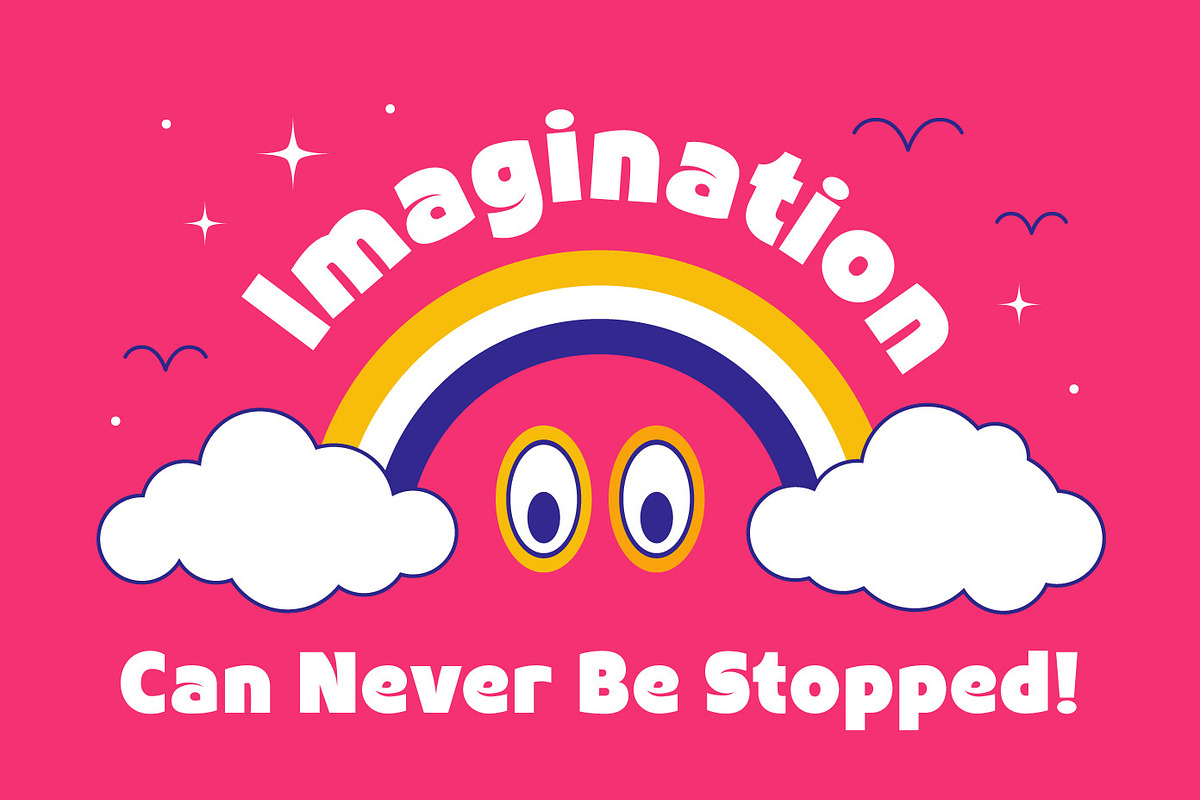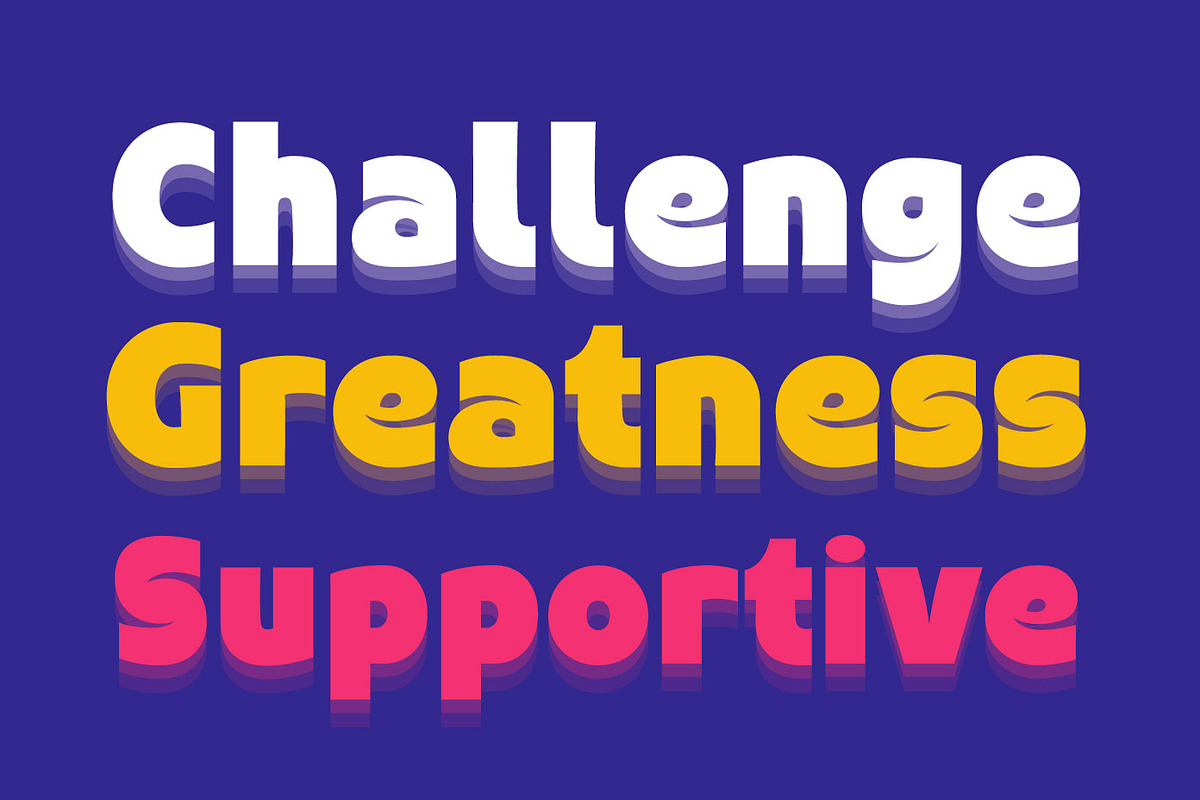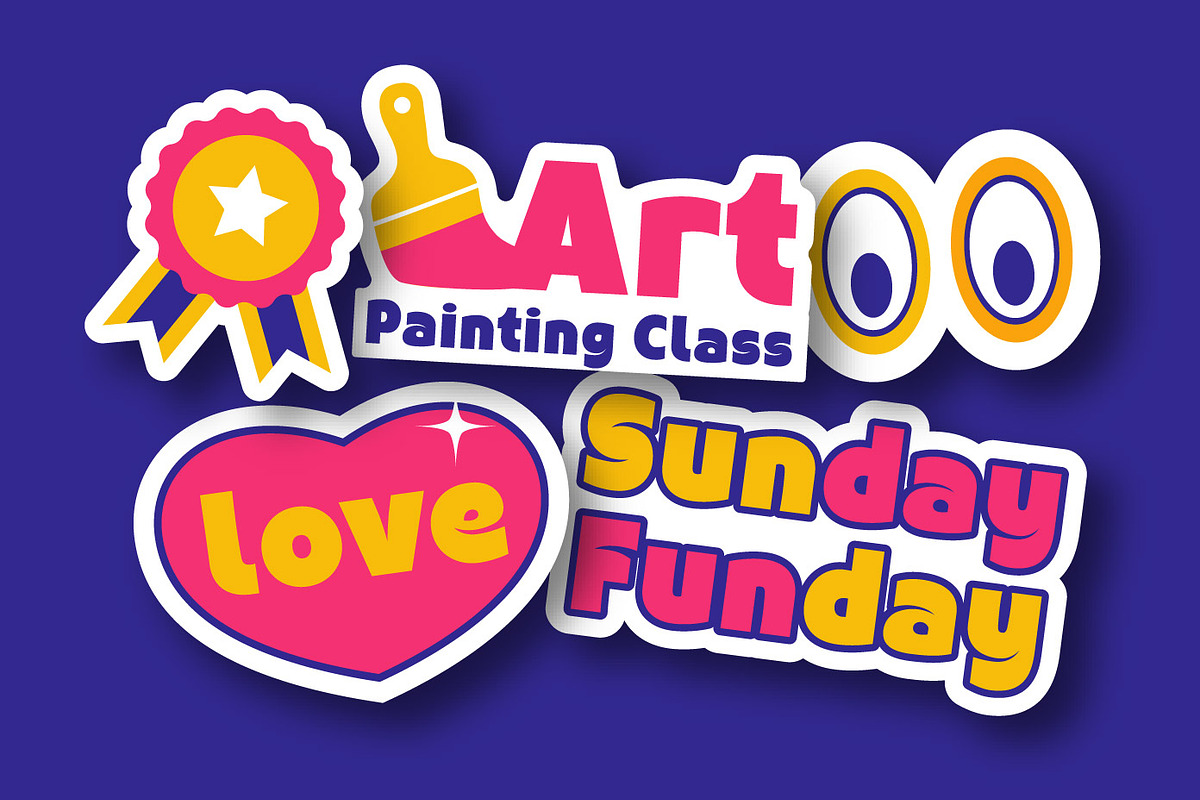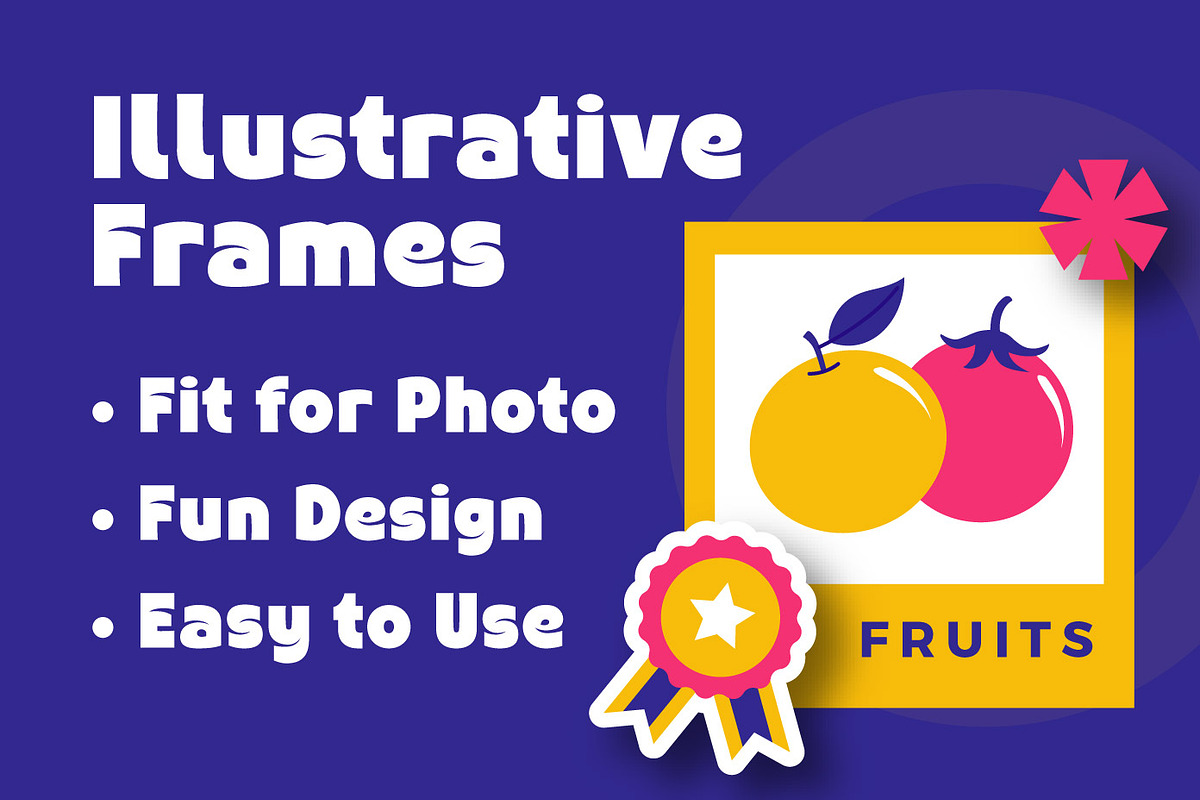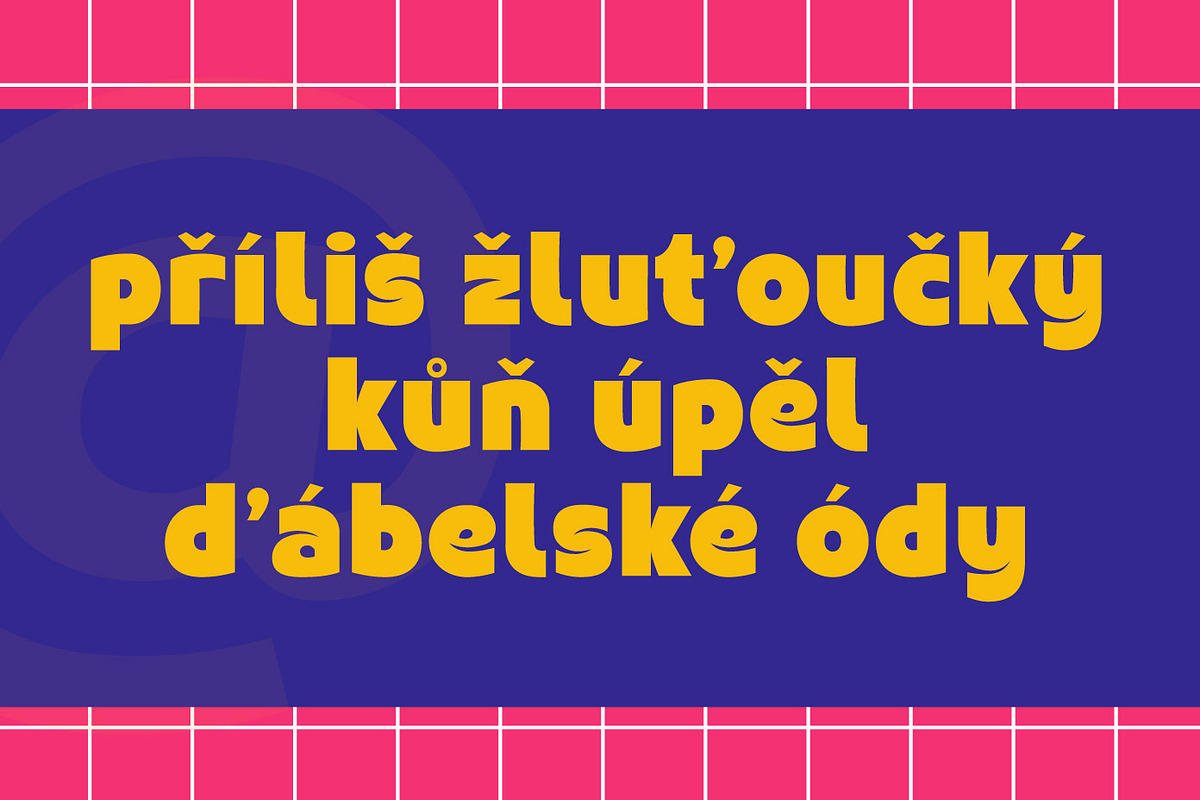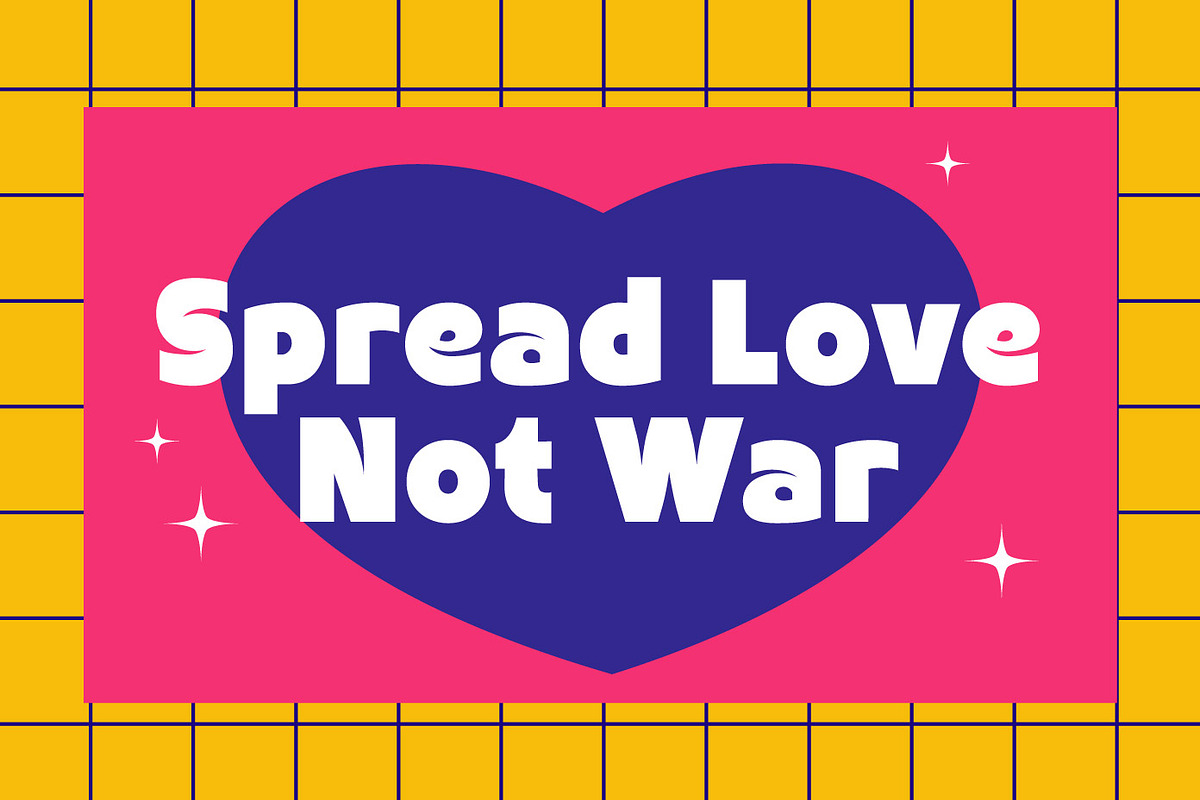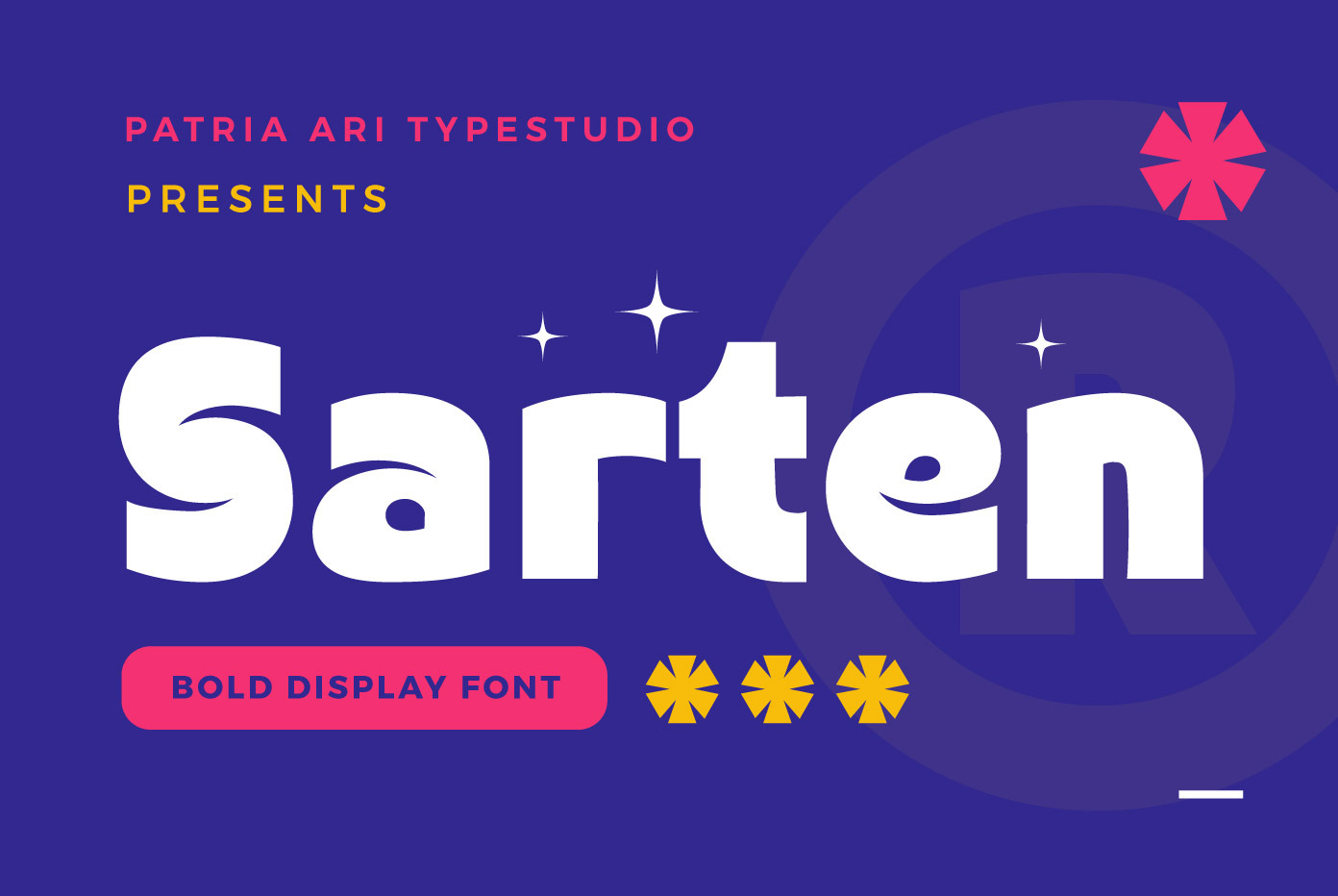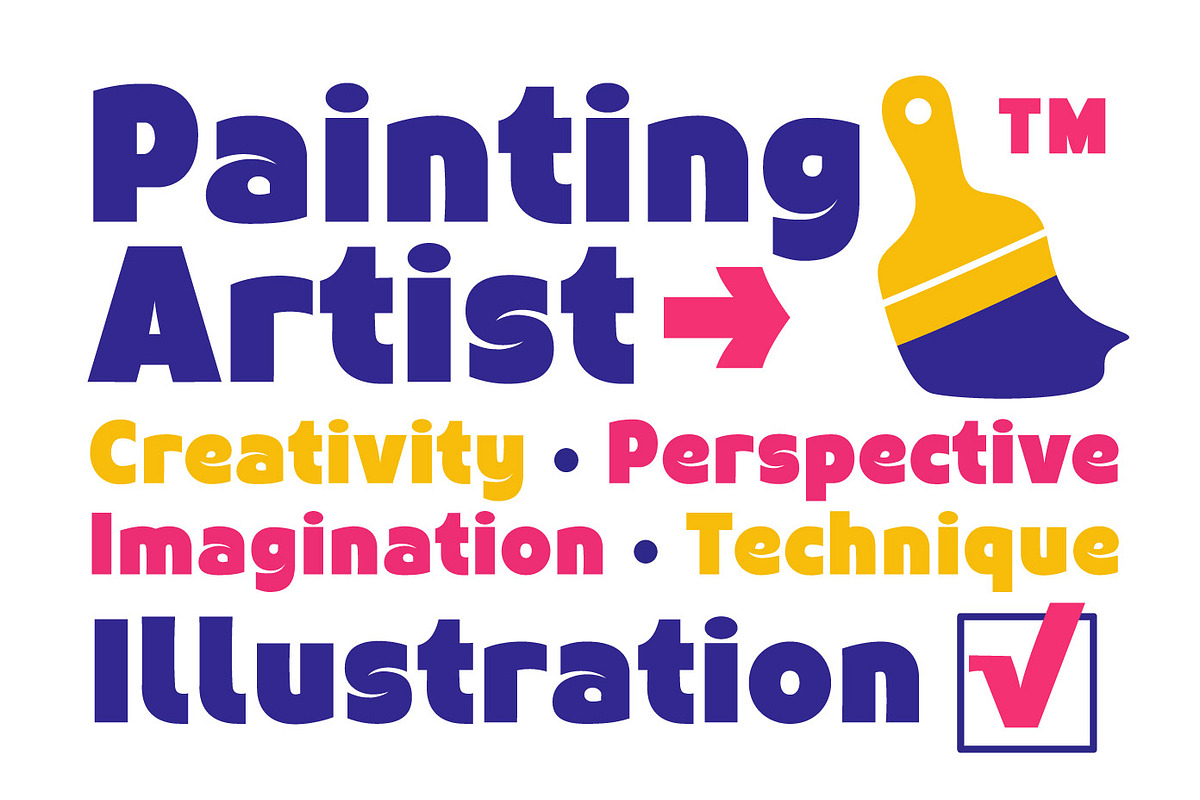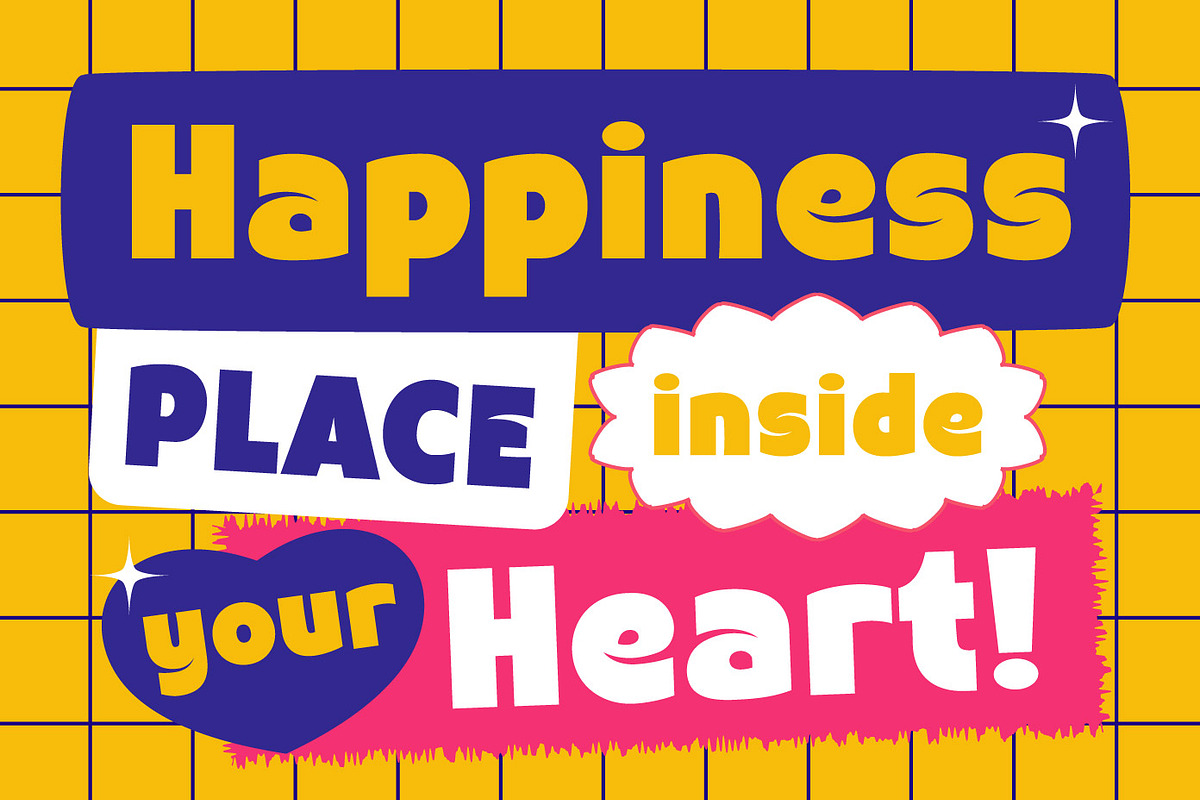
Sarten - Modern Bold Display Font
Santer is a modern all caps font with blocky shapes for display purpose.
This font perfect for display purpose such as title. book cover, advertisement purposes, craft etc.